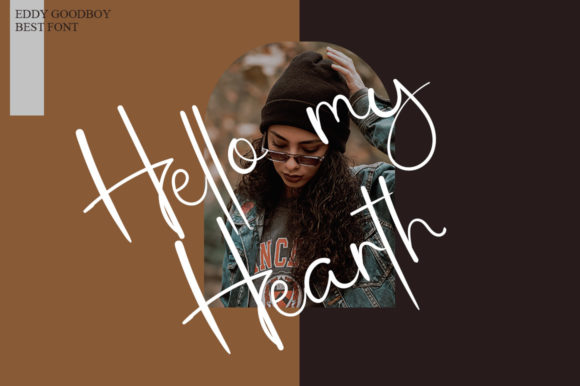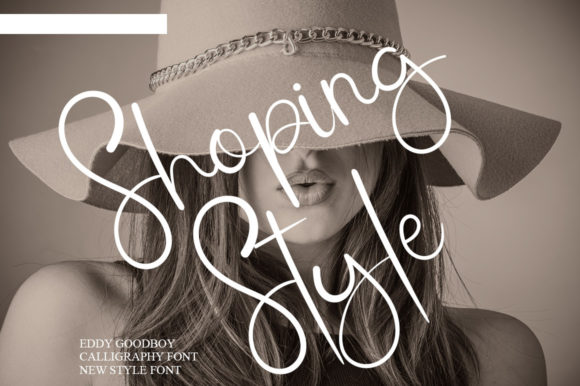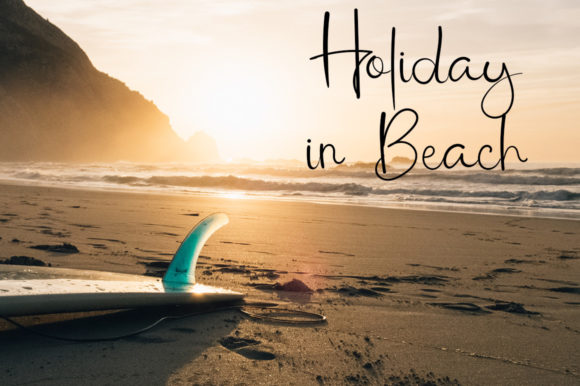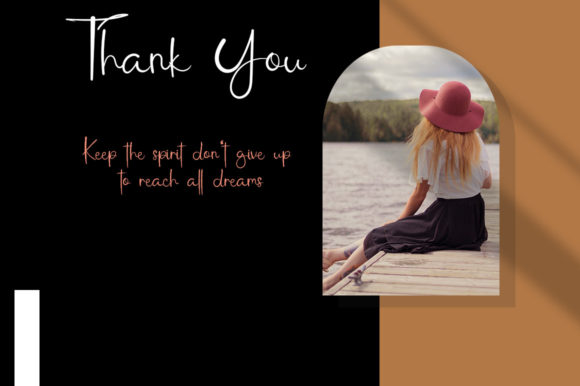
Pastella Autography Font
About Pastella Autography Font
Pastella Autography is a beautiful and light handwritten font with a unique feel and a stunning impact. It will add a luxury spark to any design project that you wish to create!